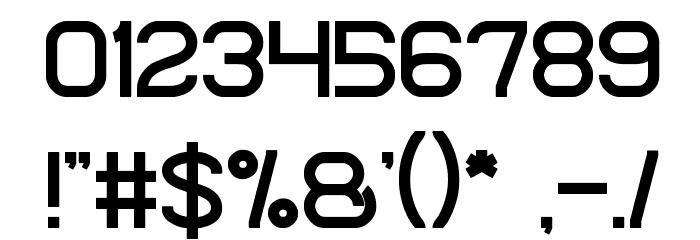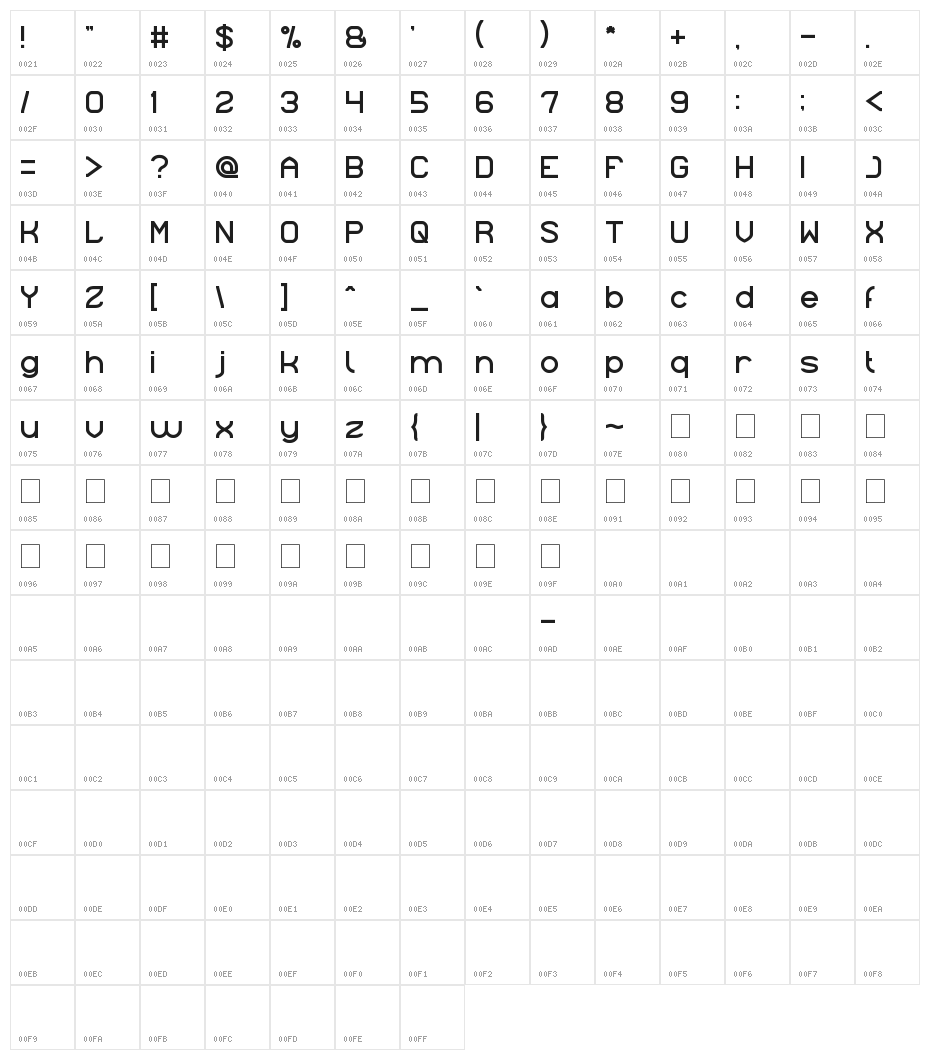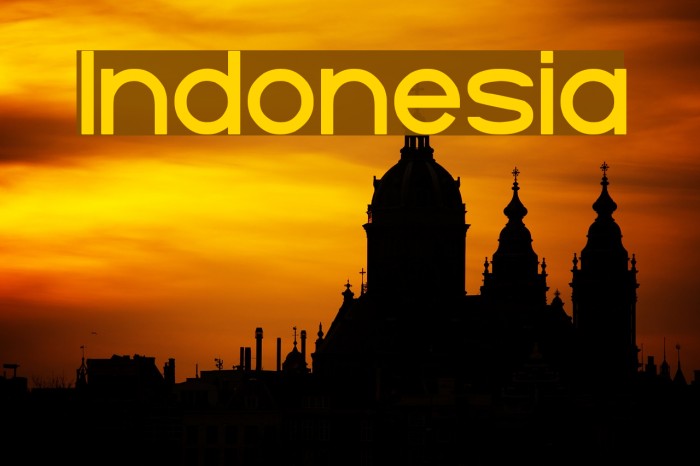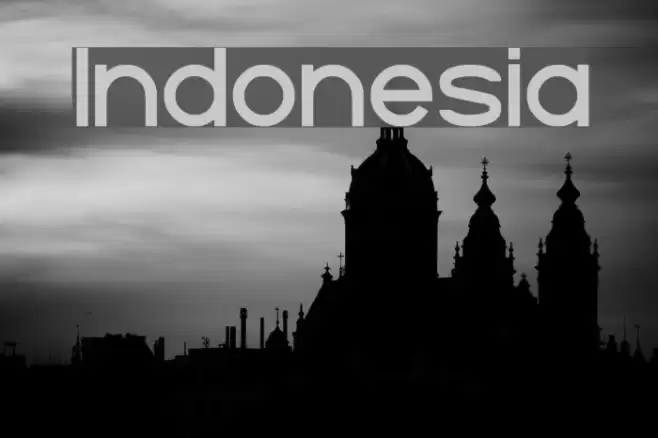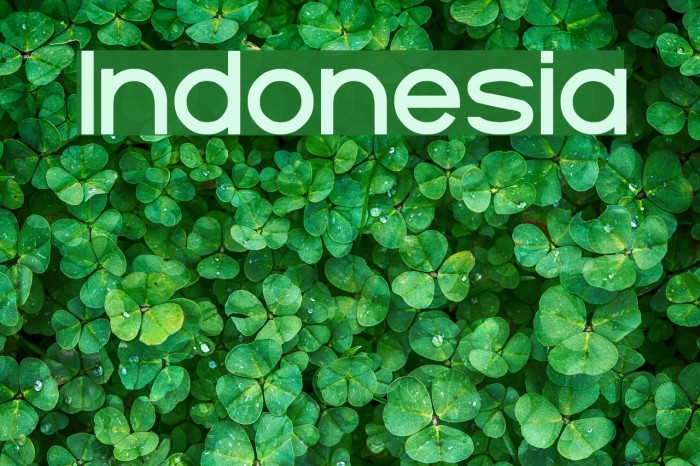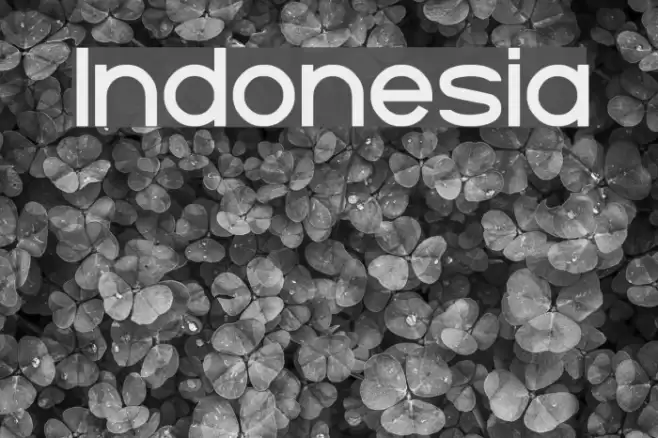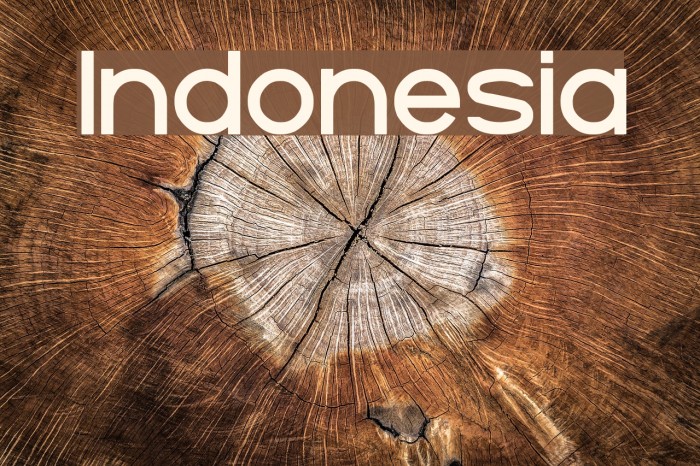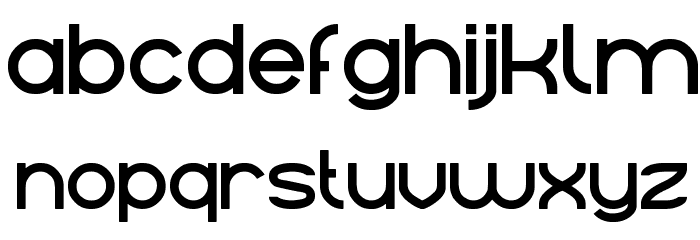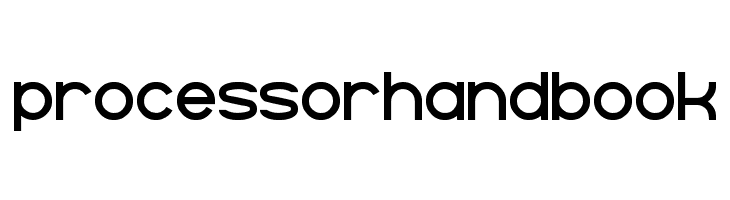
Indonesia Font
Indonesia Description
This font features a modern, geometric design with clean lines and a uniform structure. The uppercase letters are bold and slightly condensed, giving them a strong presence. The lowercase letters maintain a similar geometric style, with rounded edges that add a touch of softness to the overall appearance. The numbers are consistent with the letterforms, ensuring a cohesive look across all characters. Special characters are designed with the same attention to detail, making them easily recognizable and functional. This font's simplicity and clarity make it suitable for a variety of applications, from digital interfaces to print media.
| Use Case | Headlines, Logos, Digital Interfaces |
| Proposed Projects | Ideal for branding, digital interfaces, signage, and editorial design. |